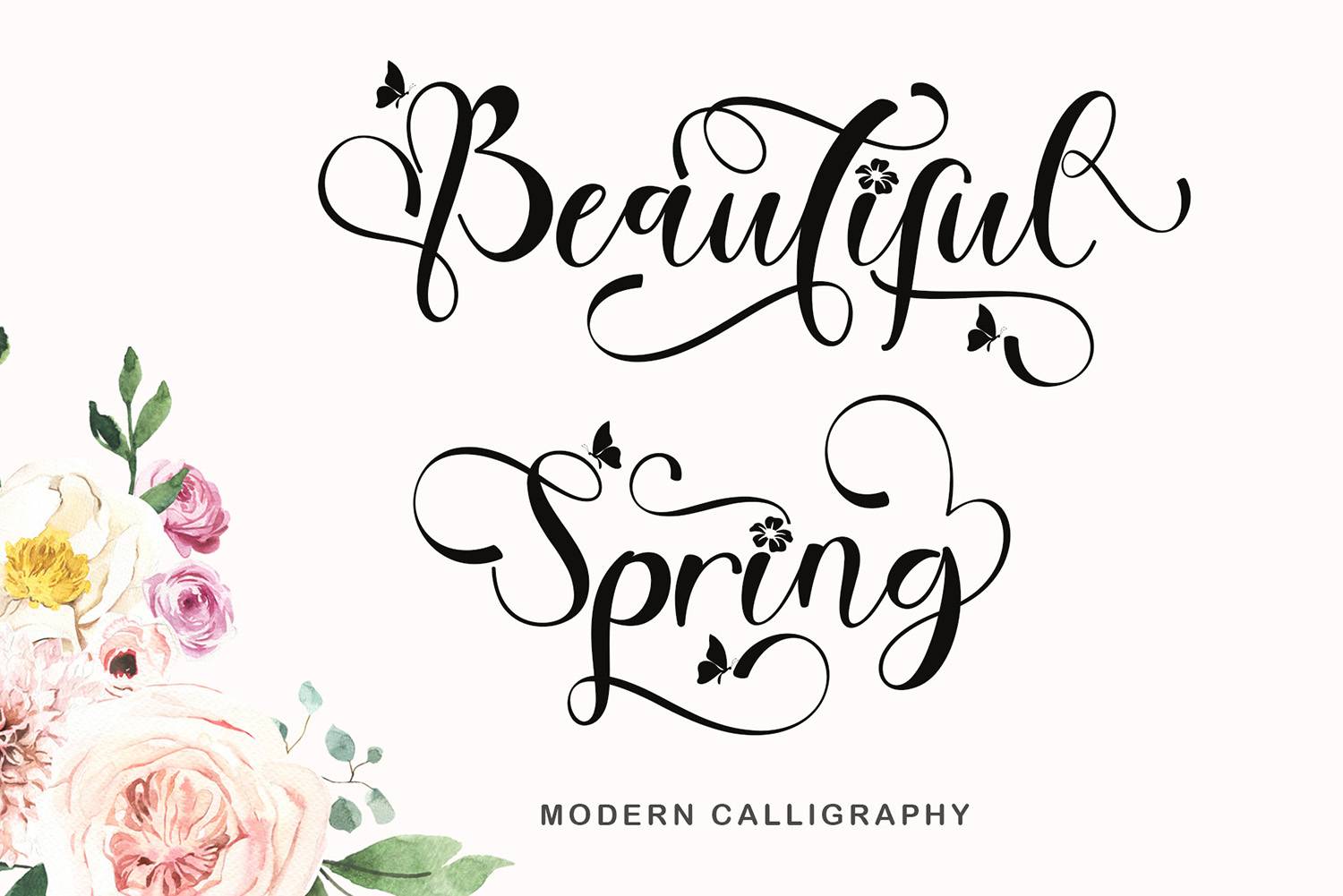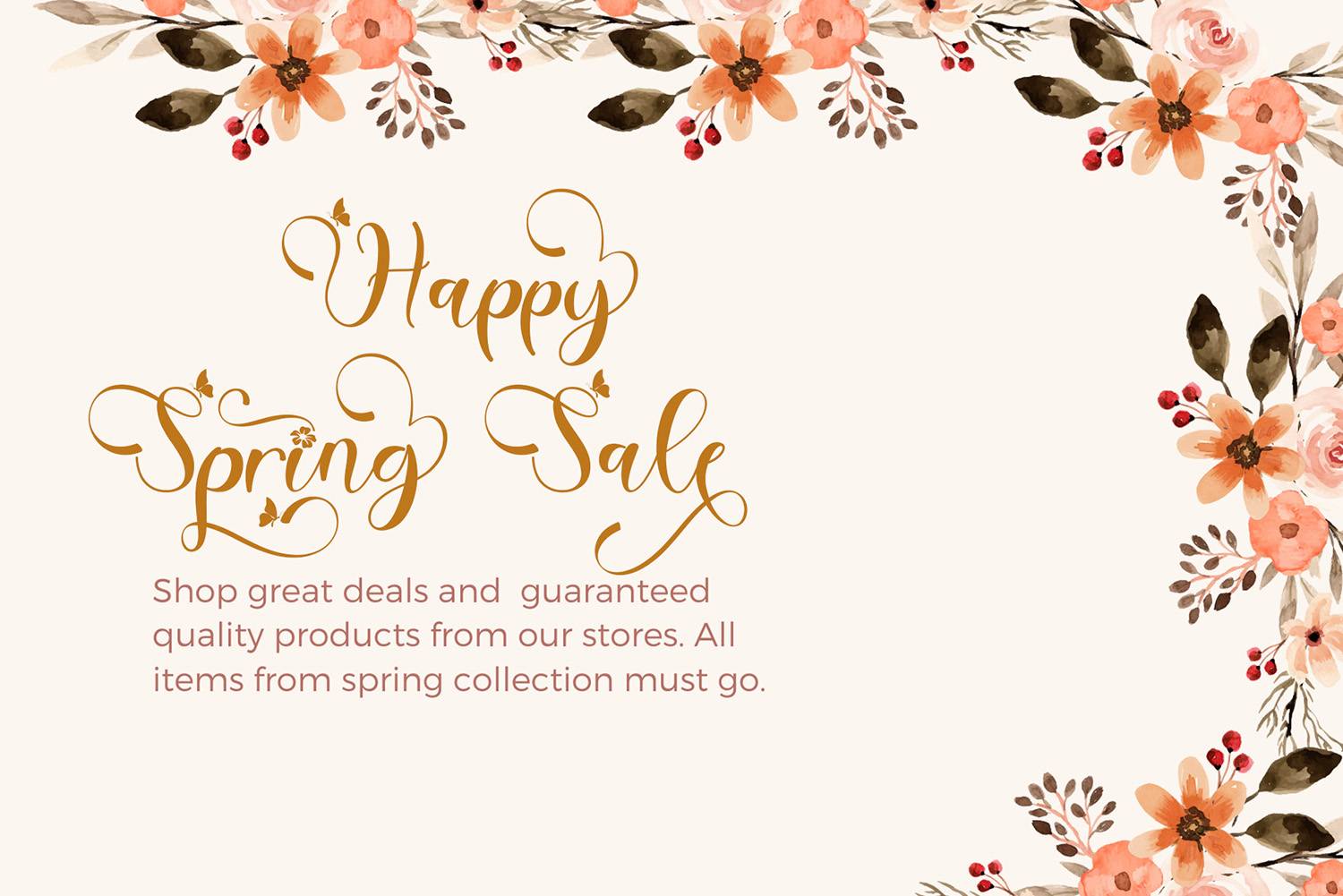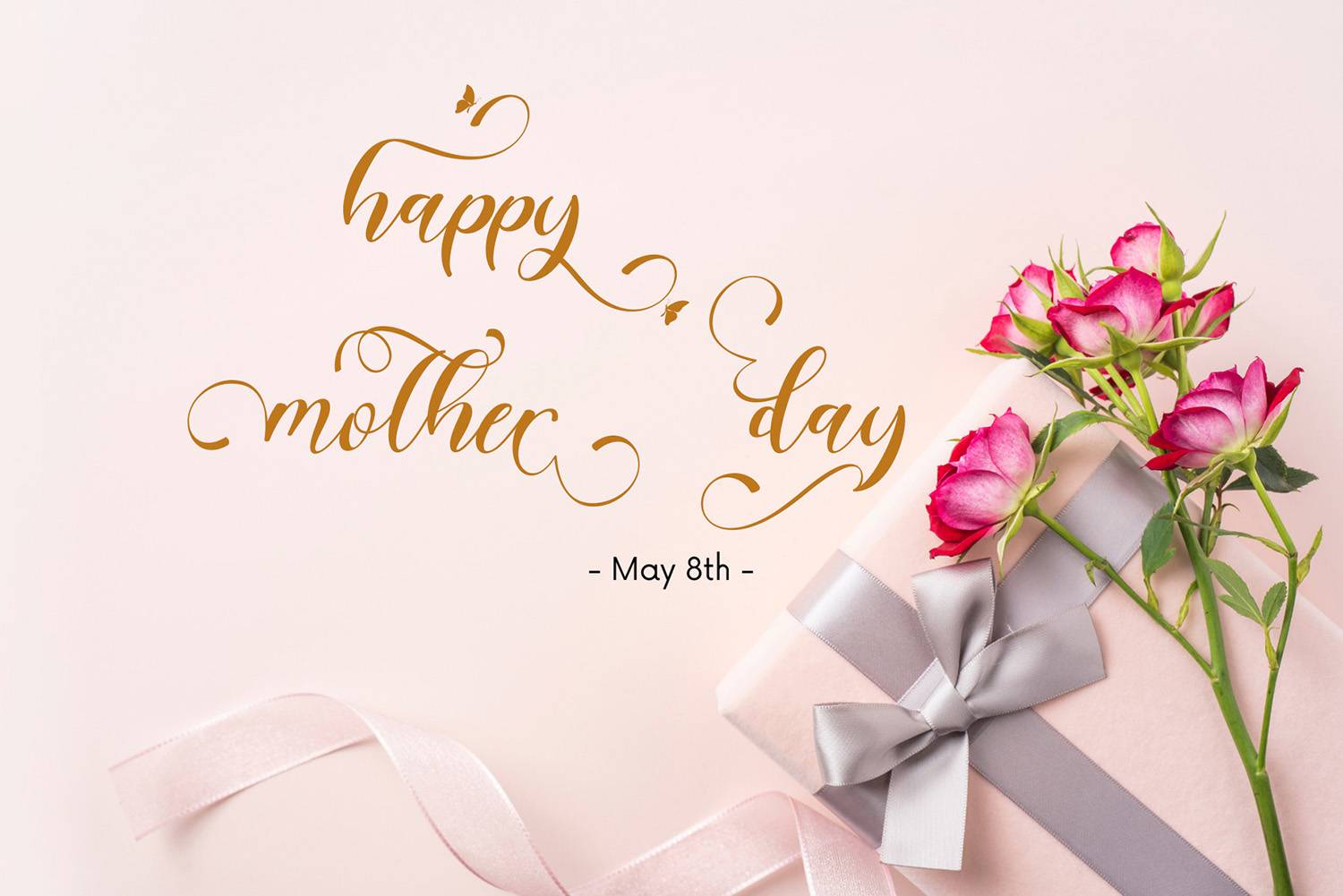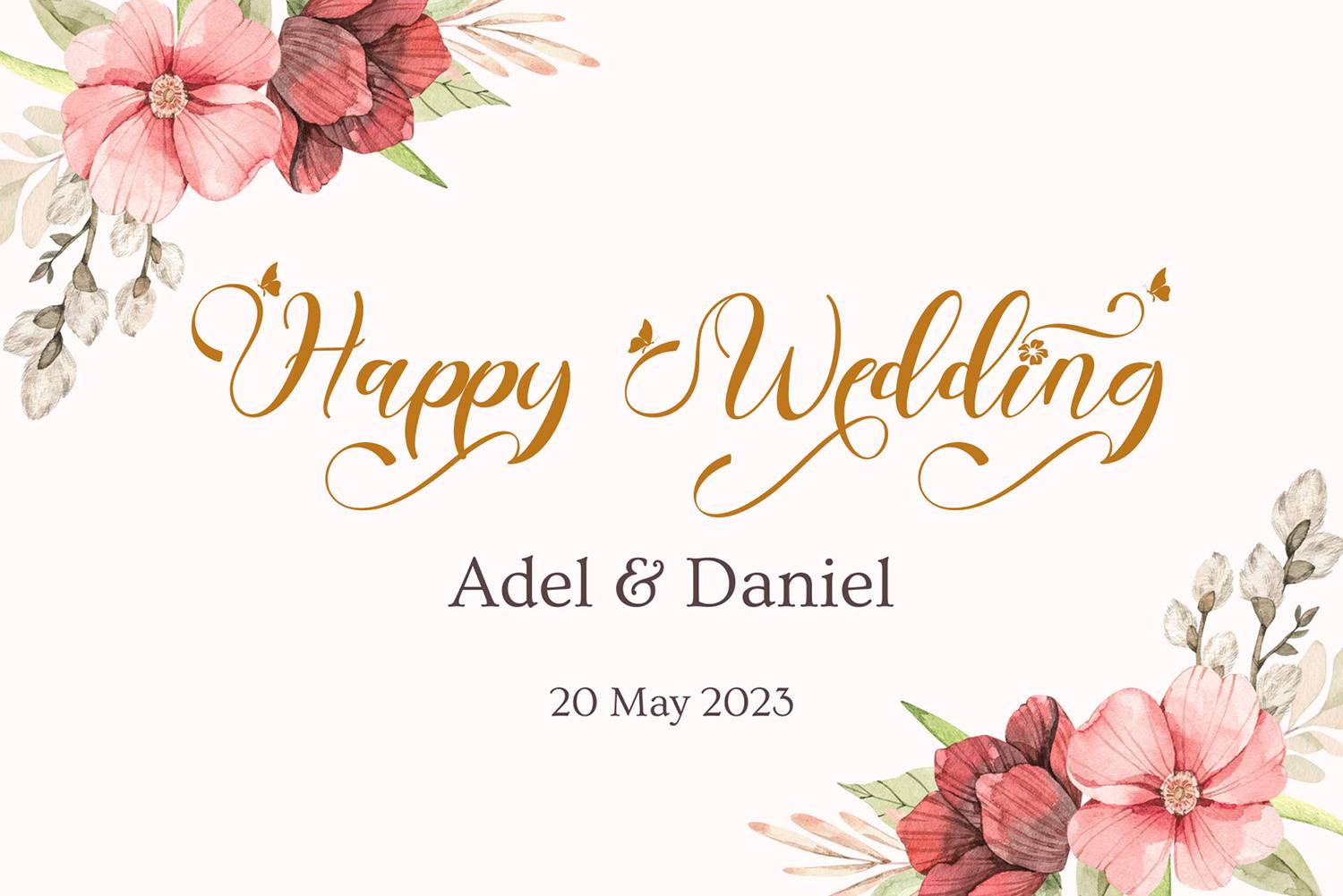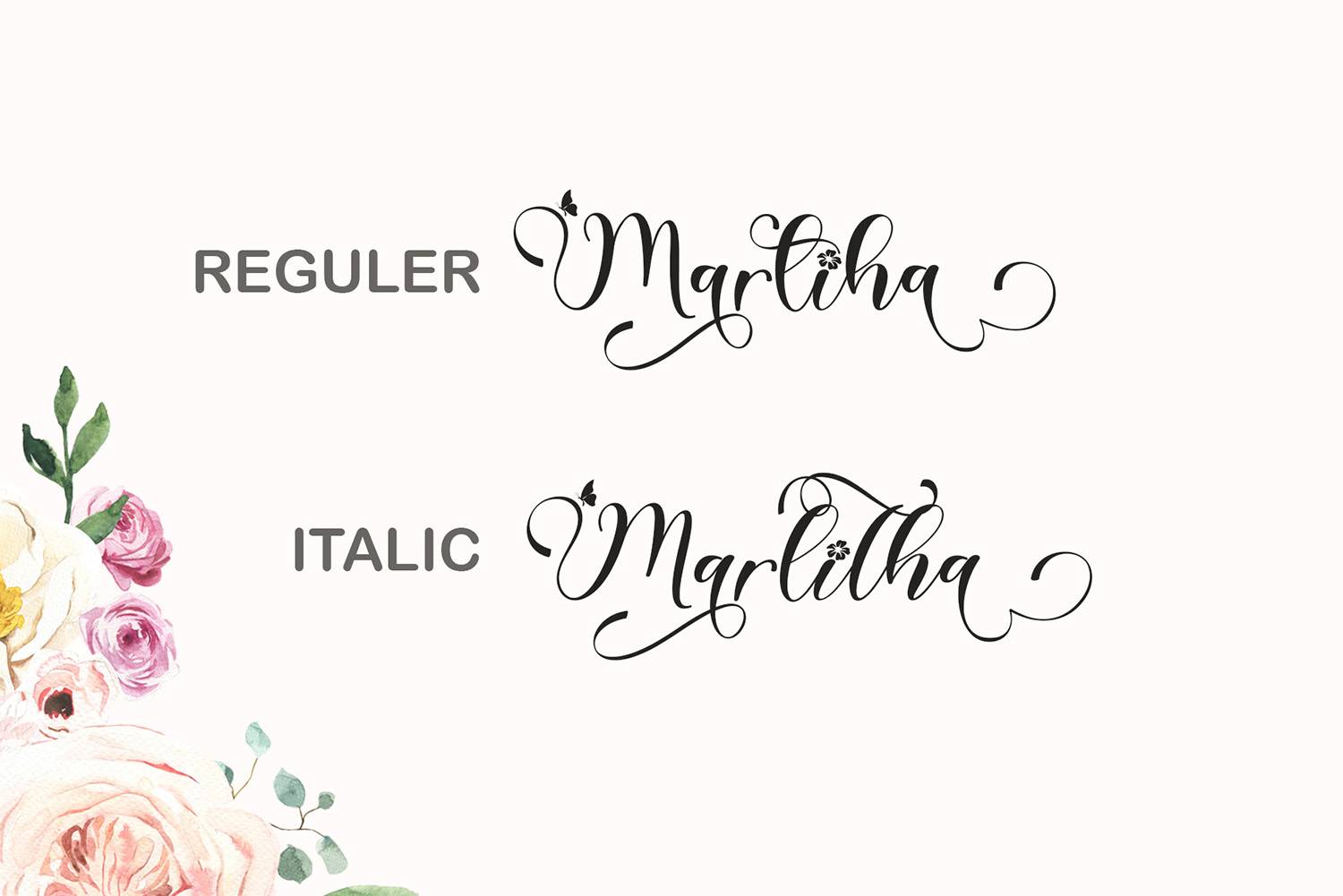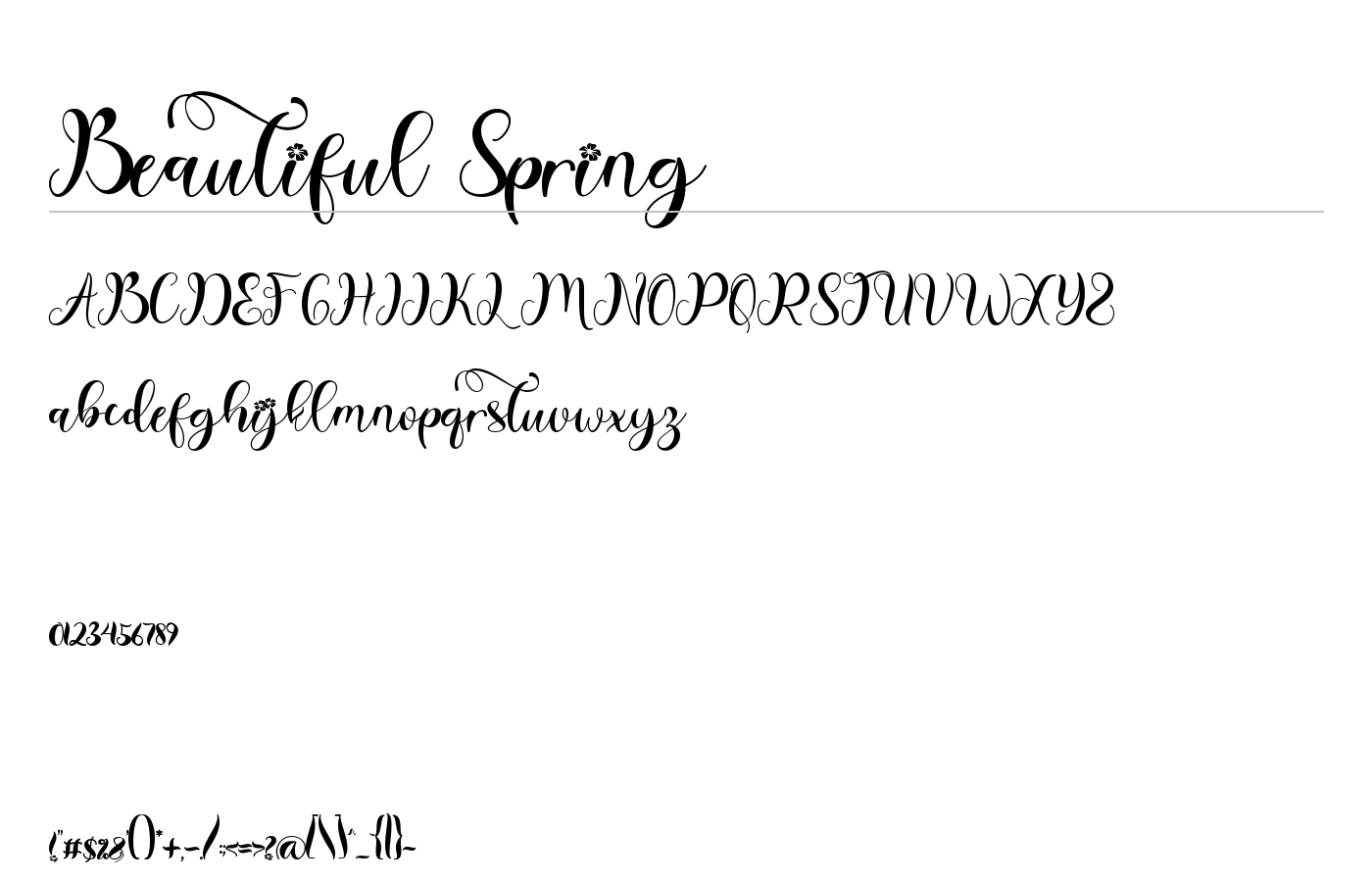
Beautiful Spring Font is a charming script typeface with graceful, flowing strokes and delicate decorative swashes that evoke a sense of elegance and whimsy. Its smooth, light weight and ornamental details make it perfect for wedding invitations, feminine branding, and creative projects seeking a romantic, handcrafted feel. This font shines in headlines and logos where a stylish, soft, and artistic touch is desired.
Beautiful Spring Font
About Beautiful Spring Font
| Font family | Beautiful Spring Font |
| Release date | 2022-04-26 |
| Designer | Yoga Letter 2022 (Isroni Yoga Prasetya) |